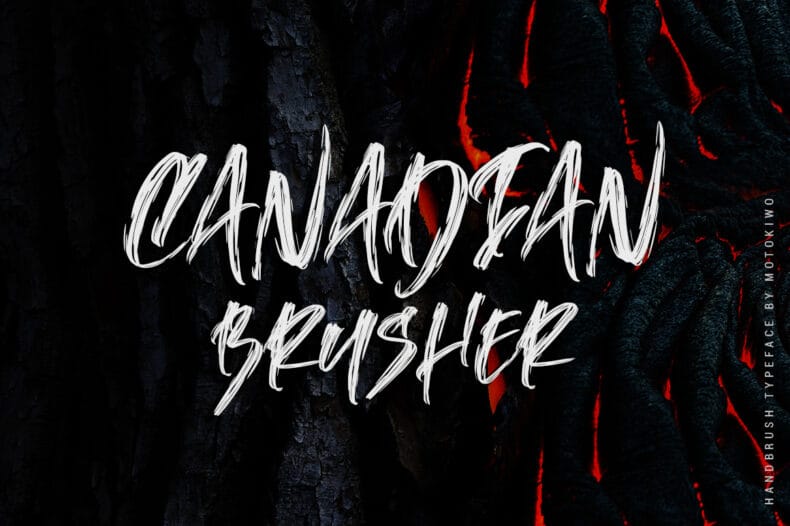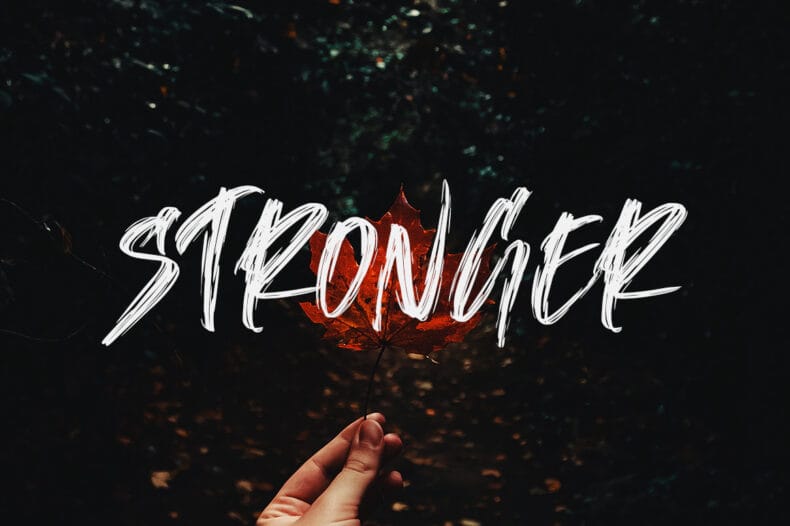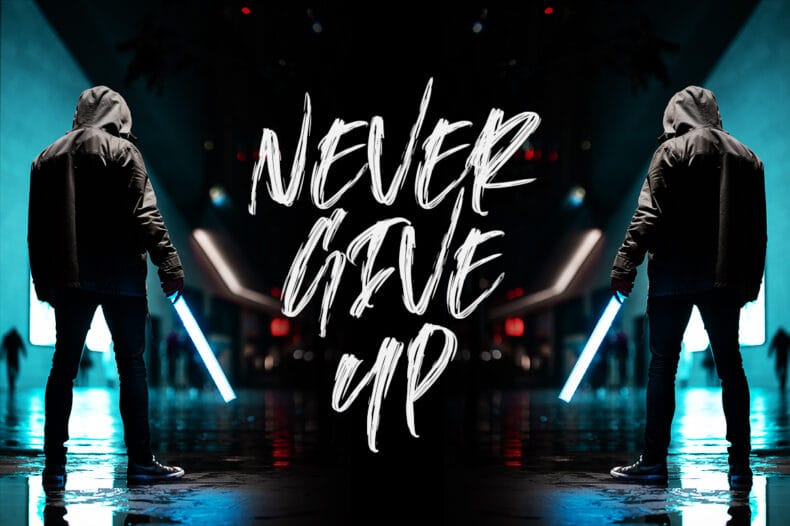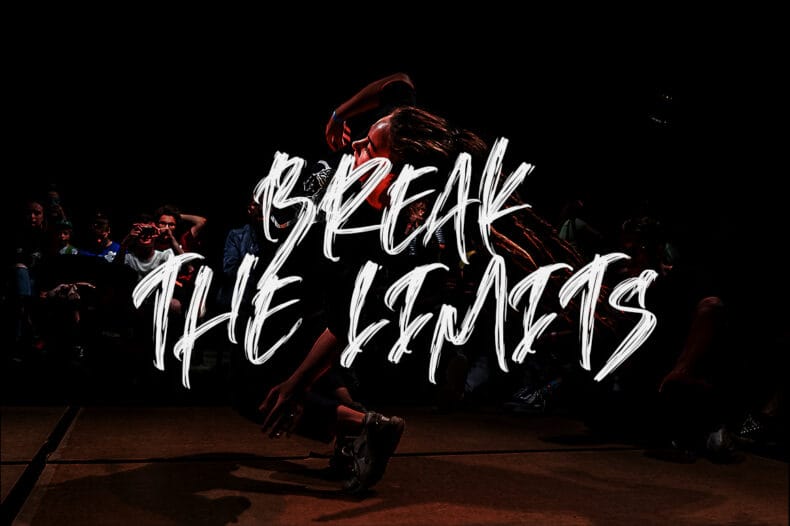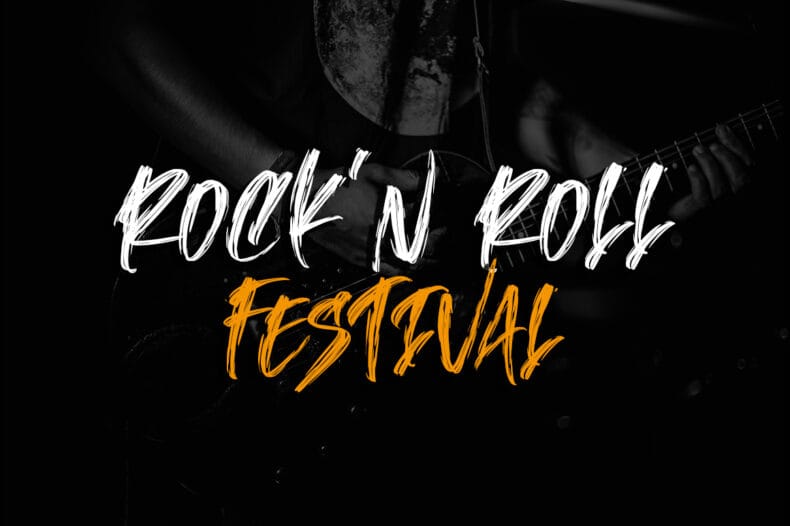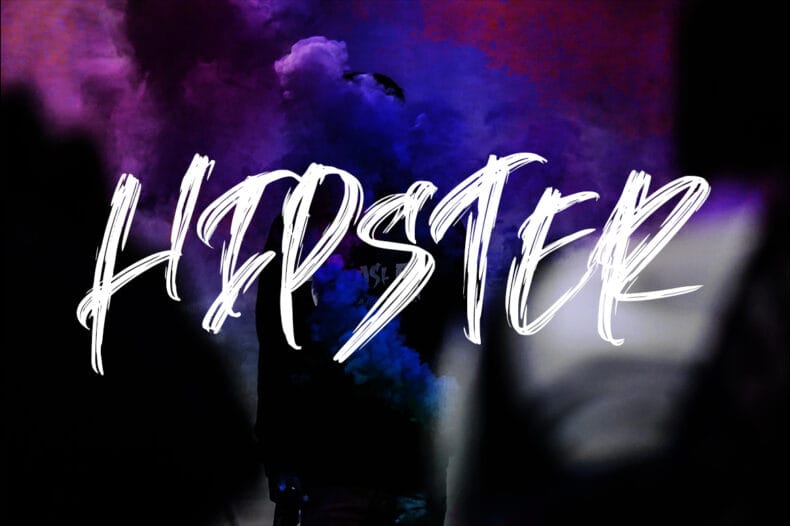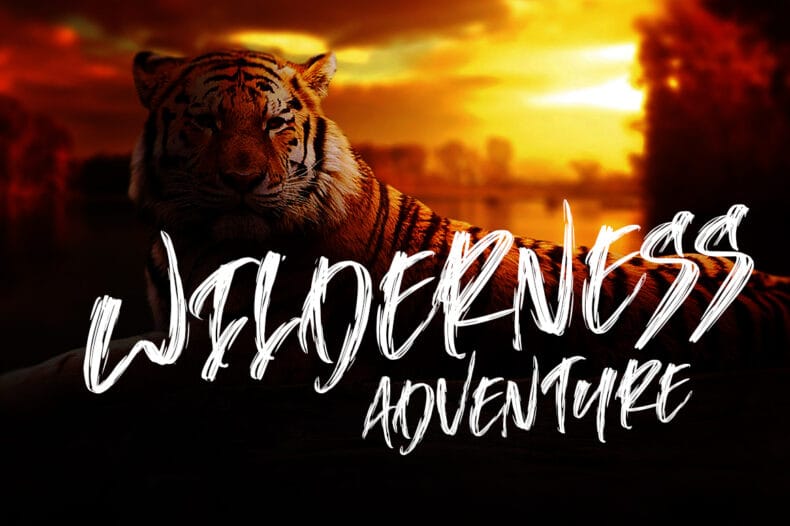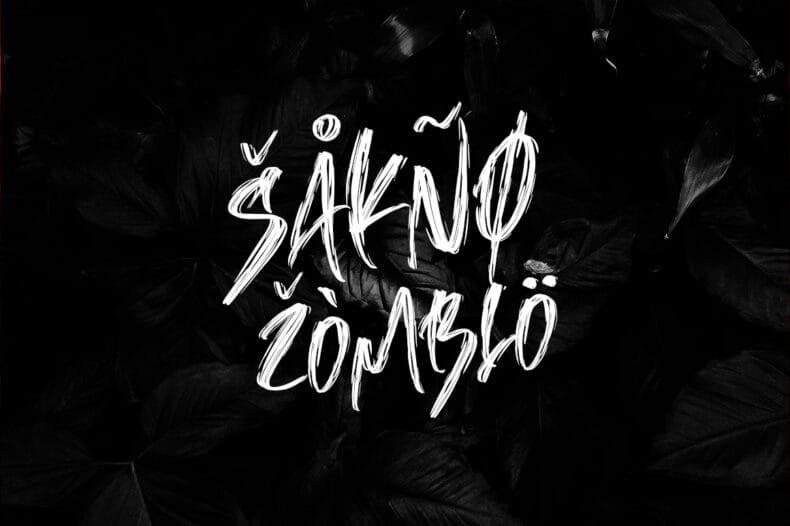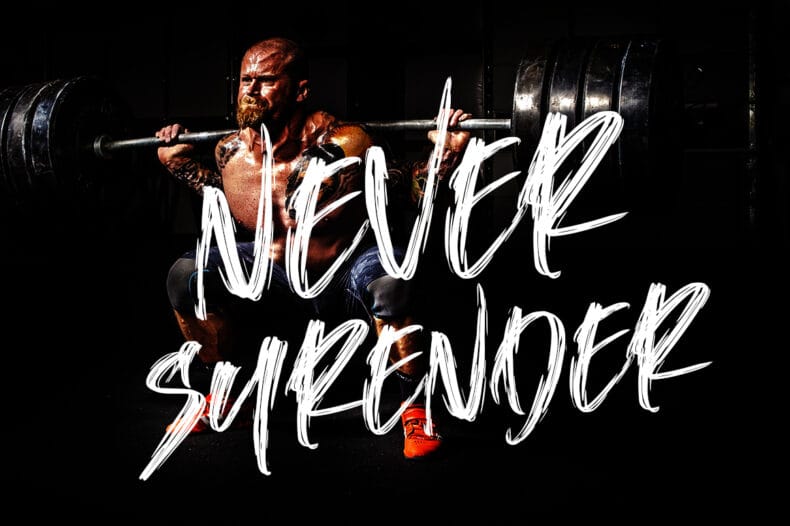
Canadian Brusher is an all-caps hand-brush display font with an energetic texture. Explore it for youth-focused graphics, poster titles, and informal headline lettering.
Canadian Brusher gives a short phrase a brush-made presence. Try it in a music graphic, an expressive campaign title, or a composition where textured type can contrast with clean shapes and photography.
The font includes capitals, numerals, punctuation, and multilingual characters. Check the actual wording against your artwork and leave enough space for the brush texture to show.